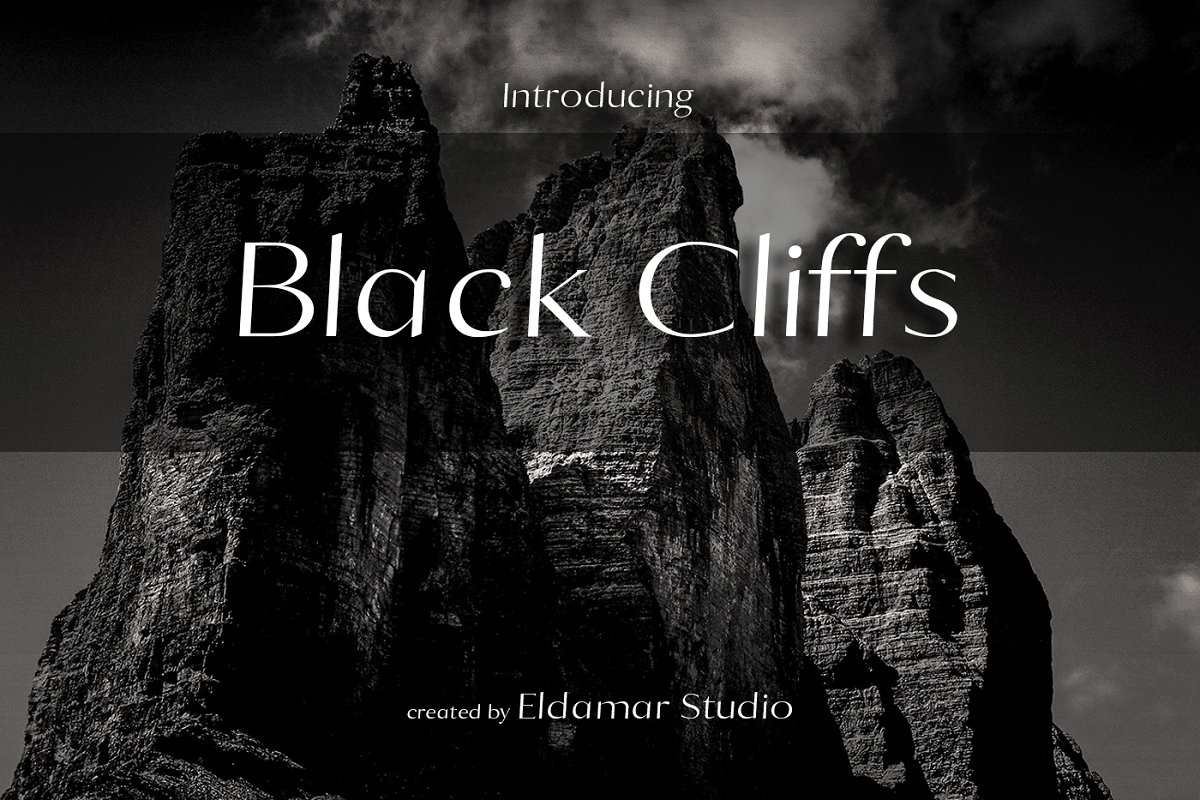
Black Cliffs Free Font
This handwritten font is a cool and modern font. A unique handwritten look makes it perfect for use in all your design projects, like logos, labels, signatures, packaging design, and blog headlines. Using this font will definitely make your text stand out.